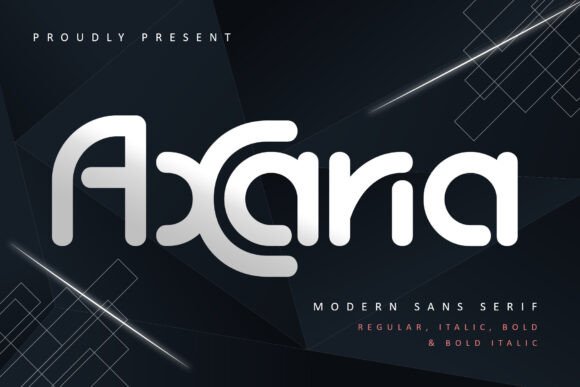
Axaria Font: Elevate Your Designs with Modern Sophistication
Axaria, a sleek and sophisticated sans-serif font, has emerged as a game-changer in the world of typography. Designed to embody modern innovation, Axaria offers a perfect blend of elegance and strength, making it an ideal choice for various design applications. In this article, we’ll explore the features, benefits, and usage of Axaria Font, and how it can elevate your designs to new heights.
Introducing Axaria Font
Axaria is a contemporary sans-serif font that boasts clean lines and a refined structure. Its sleek and sophisticated design makes it perfect for branding, editorial layouts, web design, and high-impact visuals. The font’s versatility ensures that it can be used in a wide range of applications, from logos and headlines to body text and more.
Axaria’s design is characterized by its simplicity, elegance, and precision. The font’s lines are carefully crafted to create a sense of balance and harmony, making it easy to read and visually appealing. Whether you’re designing a striking logo or a compelling headline, Axaria’s timeless versatility ensures that your message stands out with confidence.
Key Features of Axaria Font
- Clean Lines and Refined Structure: Axaria’s design is characterized by its clean lines and refined structure, making it perfect for modern designs.
- Elegant and Strong: The font offers a perfect balance of elegance and strength, making it ideal for branding, editorial layouts, and high-impact visuals.
- Versatile: Axaria can be used in a wide range of applications, from logos and headlines to body text and more.
- Timeless: The font’s timeless design ensures that it will remain relevant for years to come.
Benefits of Using Axaria Font
Axaria Font offers numerous benefits for designers, including:
- Improved Readability: Axaria’s clean lines and refined structure make it easy to read, even at small font sizes.
- Enhanced Visual Appeal: The font’s elegant and strong design makes it perfect for high-impact visuals and branding applications.
- Flexibility: Axaria can be used in a wide range of applications, from digital designs to print materials.
- Unique Identity: The font’s unique design ensures that your brand or design stands out from the crowd.
Usage of Axaria Font
Axaria Font can be used in a variety of applications, including:
- Branding: Axaria is perfect for creating striking logos, business cards, and letterheads.
- Editorial Layouts: The font is ideal for use in magazines, newspapers, and online publications.
- Web Design: Axaria can be used to create visually appealing website headers, buttons, and body text.
- High-Impact Visuals: The font is perfect for creating eye-catching posters, flyers, and brochures.
Axaria Font is a sleek and sophisticated sans-serif font that embodies modern innovation. With its clean lines, refined structure, and timeless versatility, Axaria is perfect for branding, editorial layouts, web design, and high-impact visuals. Whether you’re a designer or a business owner, Axaria Font can help elevate your designs to new heights. So why wait? Step into the future with Axaria and experience the power of modern typography.